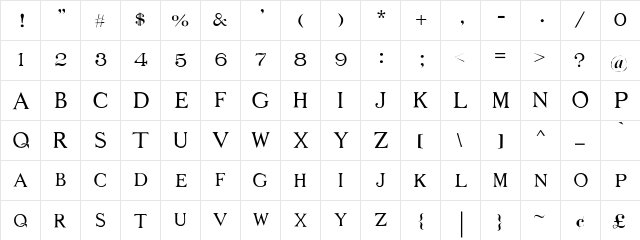
Middle Ages Regular
| Designer | George Herbert Hirst and Wilfred Rhodes |
Design Context for Middle Ages Typeface
Middle Ages takes a measured approach to typography — its balanced proportions and neutral character make it a reliable workhorse for both digital and print work.